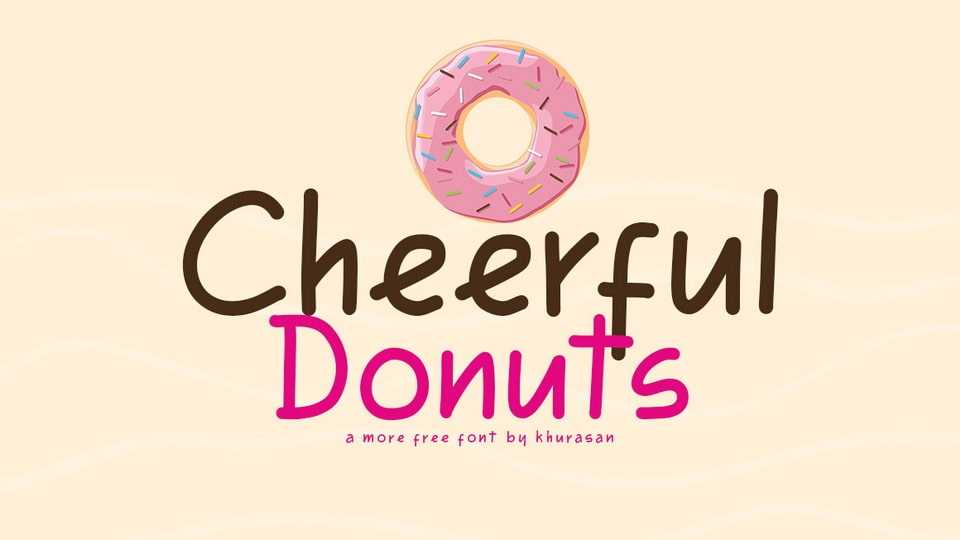
Download Cheerful Donuts font, a hand drawn typeface that embodies the spirit of comic lettering. Each character is thoughtfully crafted to capture the expressive, dynamic quality of cartoon text.